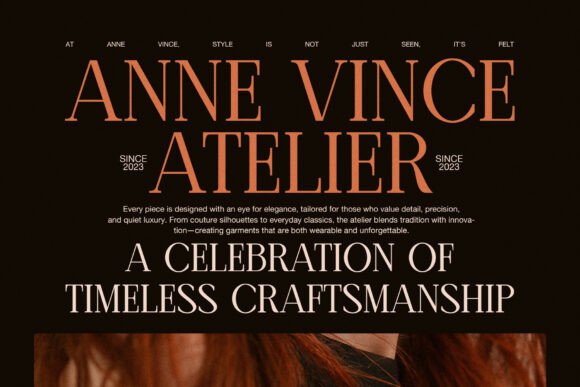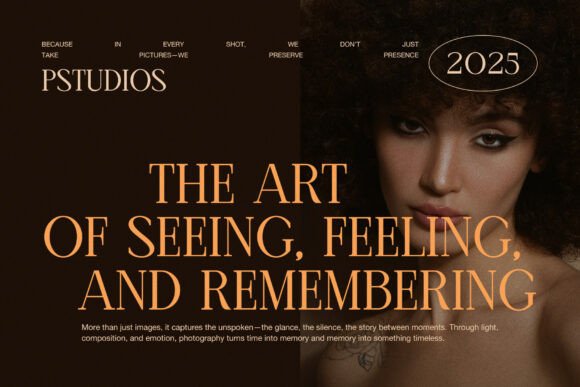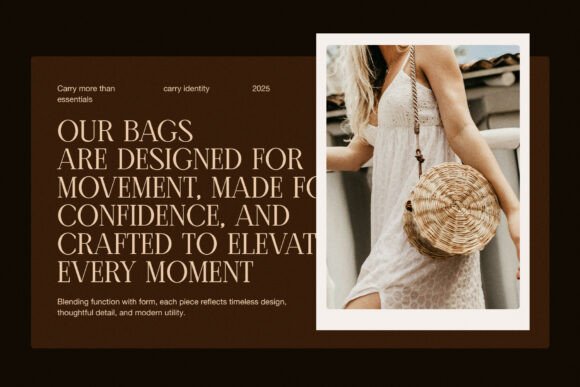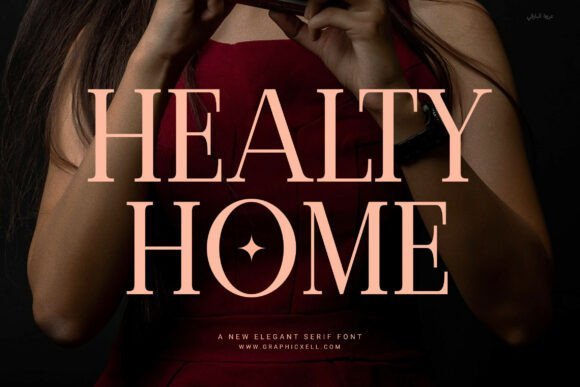
Introduction to Healty Home Font
**Healty Home Elegant Serif Font – Stylish and Clear for Your Branding** Healty Home Elegant Serif Font is a modern serif font made to give your brand a neat and elegant look.
Its smooth and balanced letters fit well in many designs Whether you create logos, websites, magazines, or product labels, Healty Home will make your work look clean and professional.